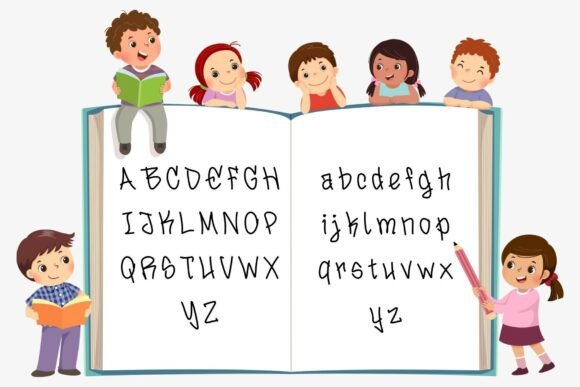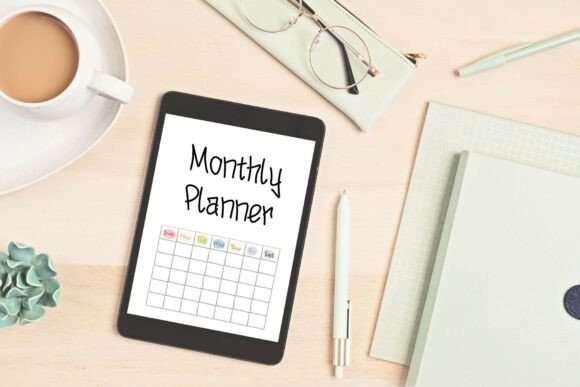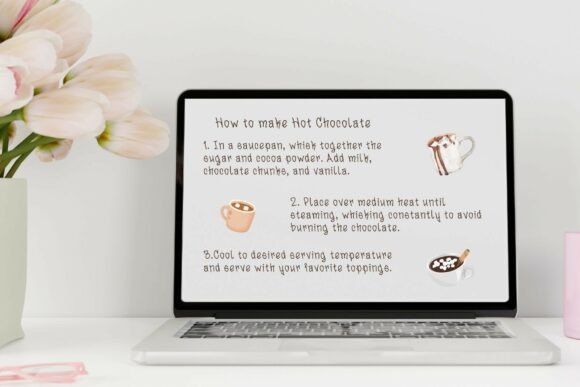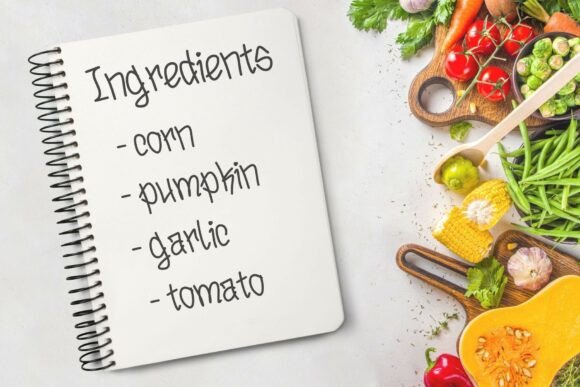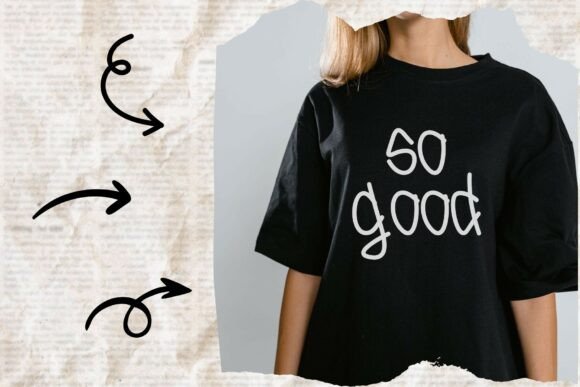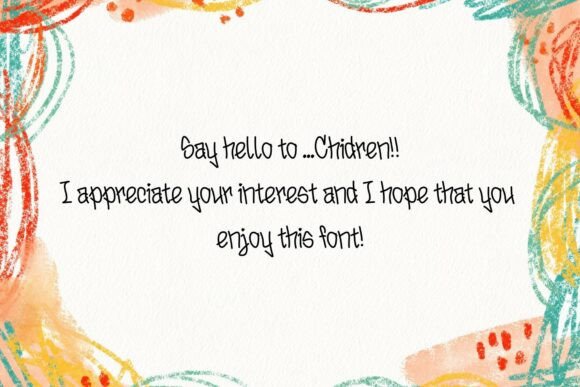
The Ultimate Guide to Children Font: A Designer’s New Best Friend
I’ll never forget the time I was working on a project for a client’s children’s party invitations. I had a clear vision of what I wanted to create, but I just couldn’t find the right font to bring it all together. The designs were either too formal, too quirky, or just plain boring. That’s when I stumbled upon the Children font, and let me tell you, it was love at first sight! ✨
An Honest Review of Children Font
- ✨ The handwritten style is so natural and effortless, it feels like the font was written just for my project.
- ✅ The font is incredibly versatile, making it perfect for a wide range of uses, from digital note-taking to product packaging.
- 🎉 The font comes with a range of OpenType features, glyphs, and stylistic alternates, allowing me to customize it to my heart’s content.
While I absolutely adore the Children font, there are a few minor quirks to be aware of. 🤔
- ⚠️ Some of the letters may appear a bit cramped when used at smaller sizes, so be sure to adjust the tracking accordingly.
- ⚠️ The font doesn’t come with a built-in italic version, but the stylistic alternates more than make up for it.
The Backstory of Children Font
The Children font was designed with the intention of creating a friendly, approachable font that’s perfect for a wide range of projects. The designer wanted to create a font that felt like it was written with love and care, and I think they succeeded! 💕
| Font Name | Children Font |
| Author | ruddean design |
Q: Is Children Font suitable for body text?
A: While the Children font is beautiful, it’s best suited for headings, titles, and short paragraphs. For body text, you may want to choose a more traditional font.